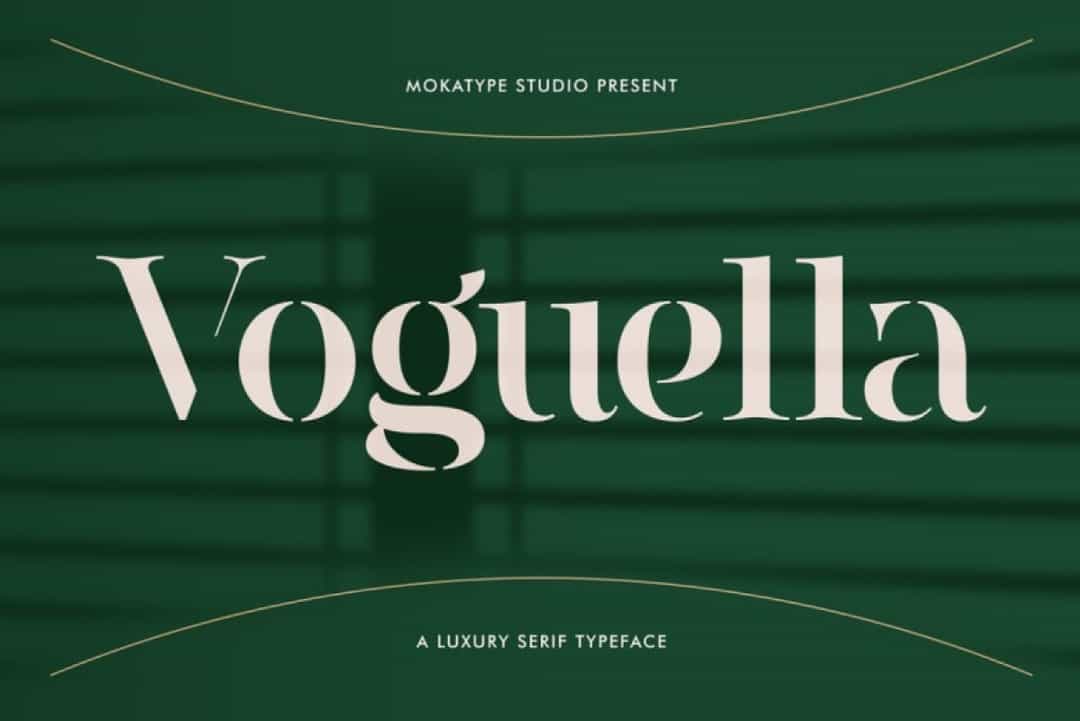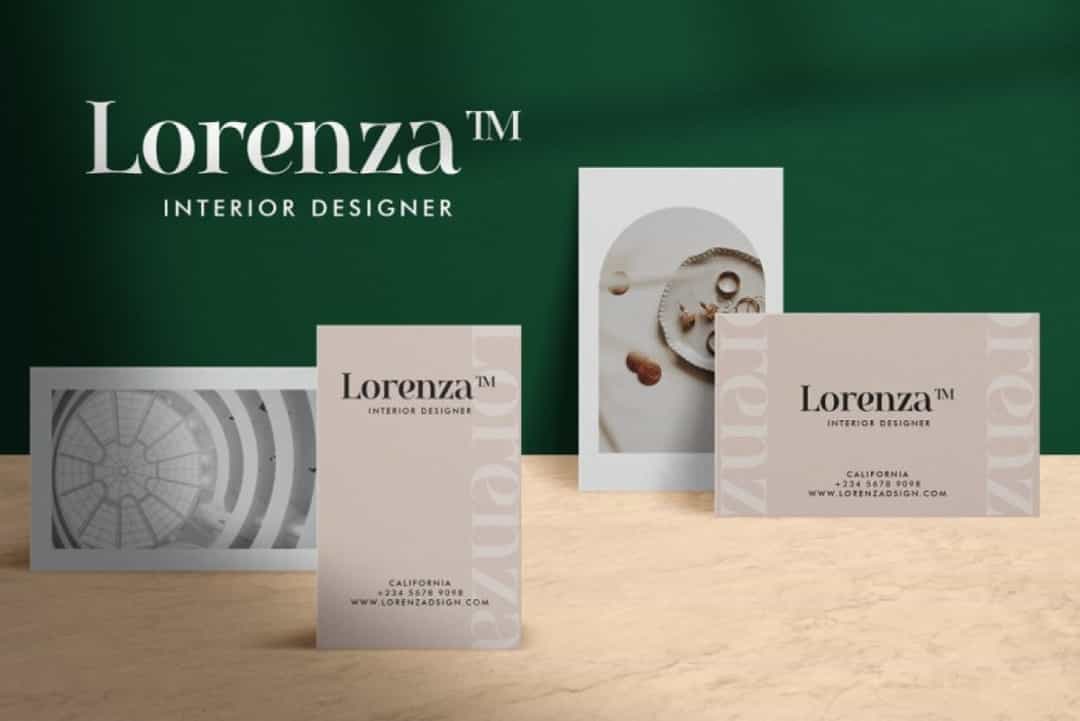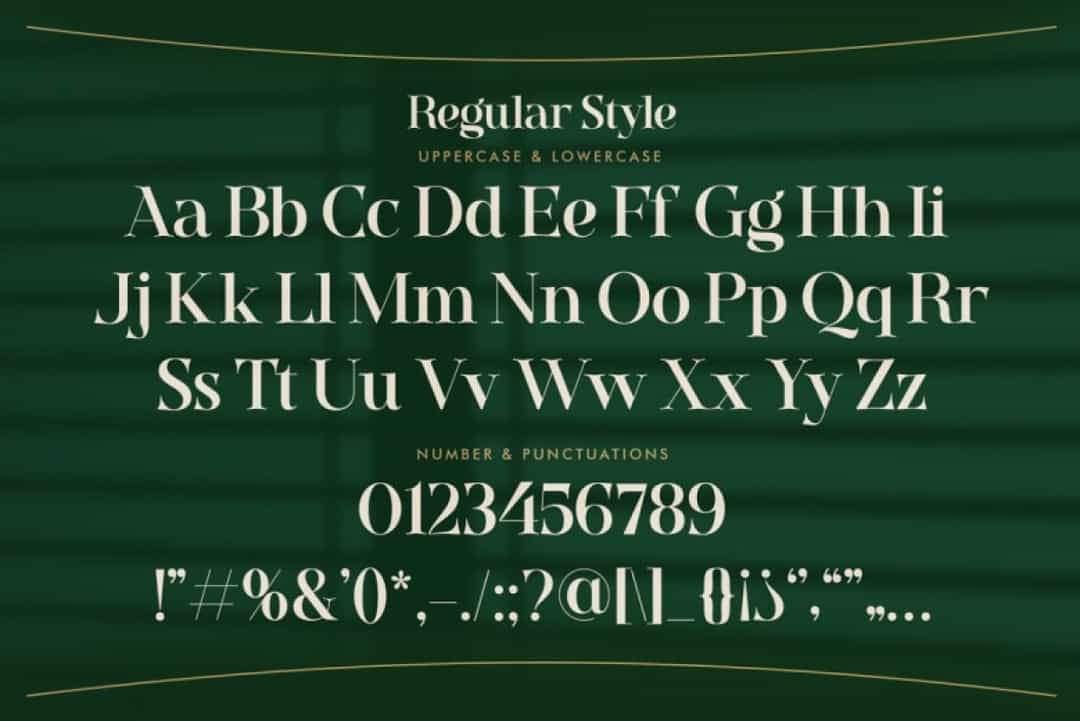
Discover Voguella Font, part of the Serif Display collection—a versatile and unique font perfect for adding a personal touch to your projects. Download it for free and enjoy crafting designs with style, from invitations to social media posts. This font is available exclusively for personal use, giving you the freedom to create without limits. Unlock your creativity with Voguella Font today!
Hello and Welcome to Voguella: Luxurious Serif Display font is stylish and inspired by iconic elegant logo. Ideal for creating brochures, templates and videos as well as branding advertising logos etc. Also adds distinctive variation wordmark logos monograms pull quotes. What’s included :